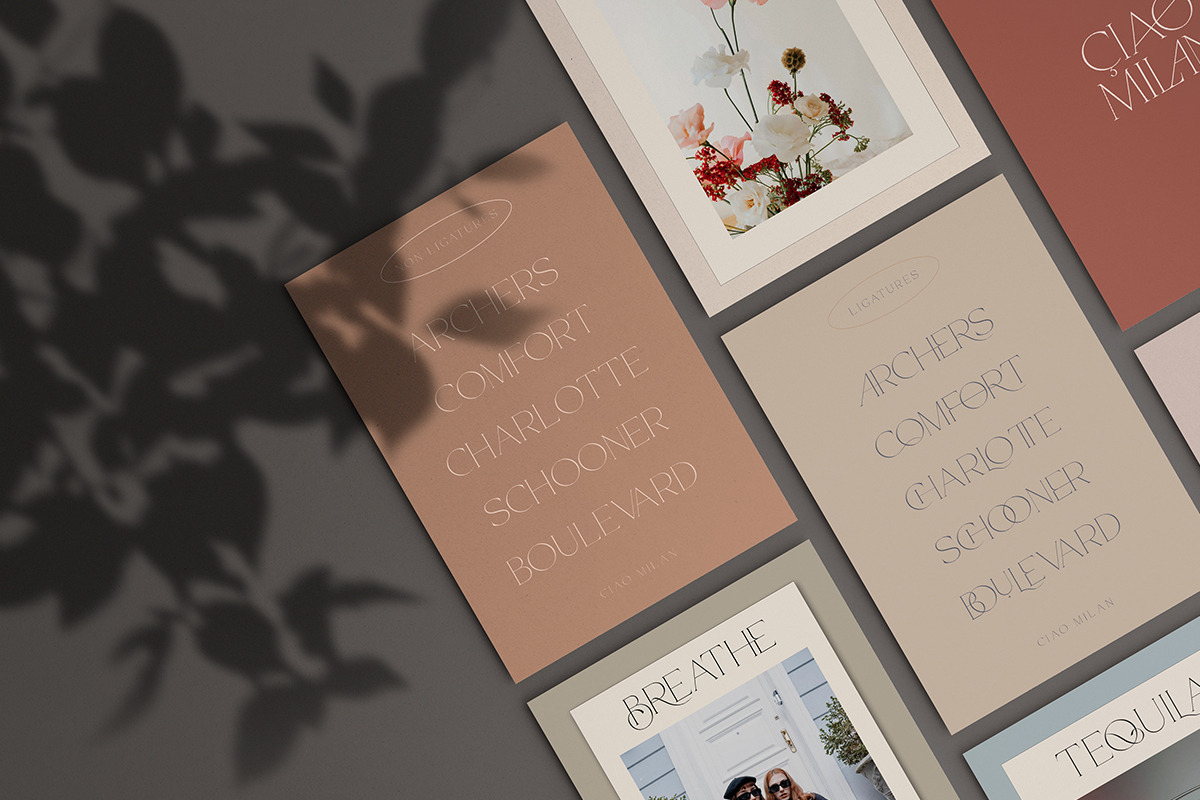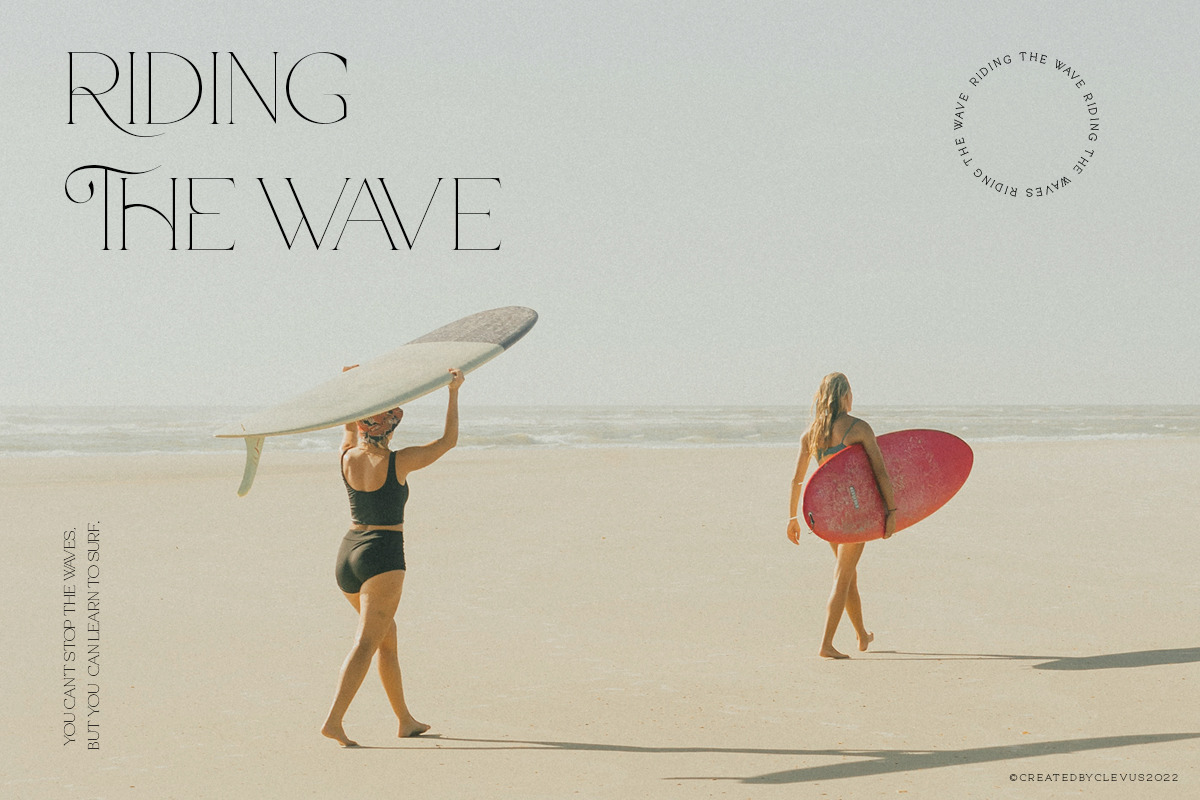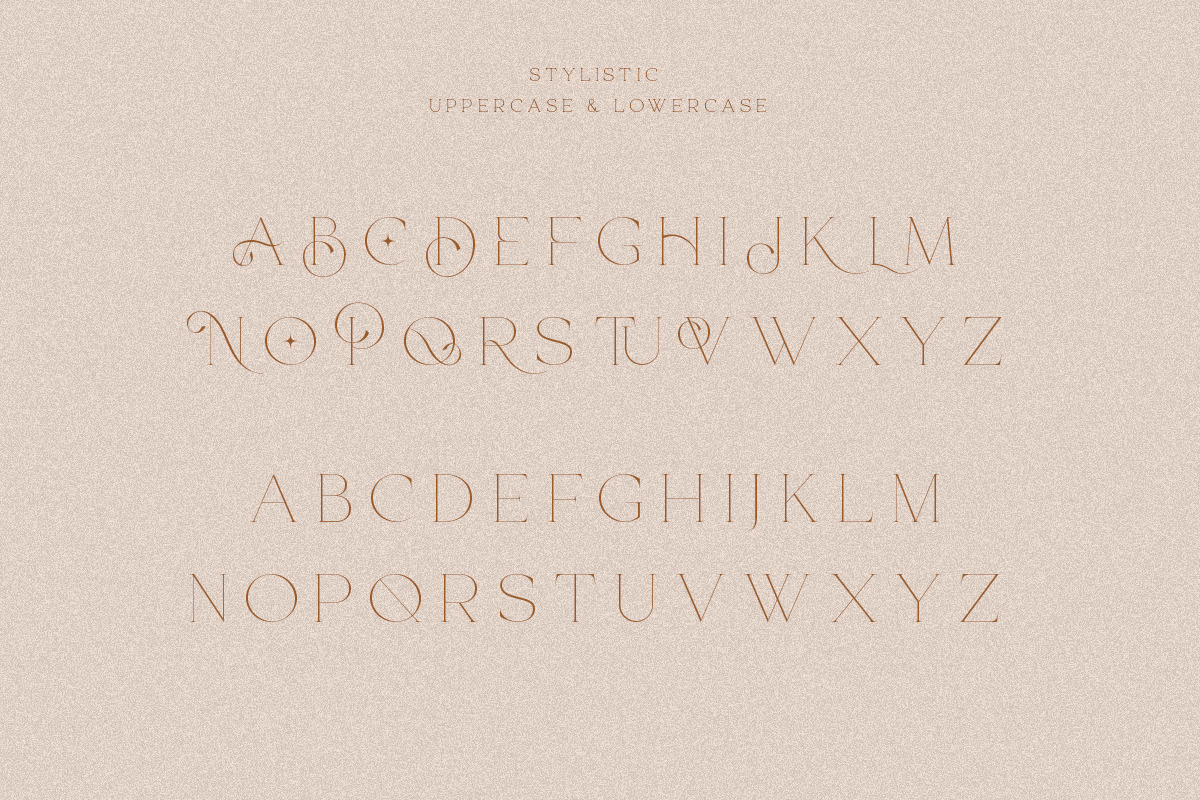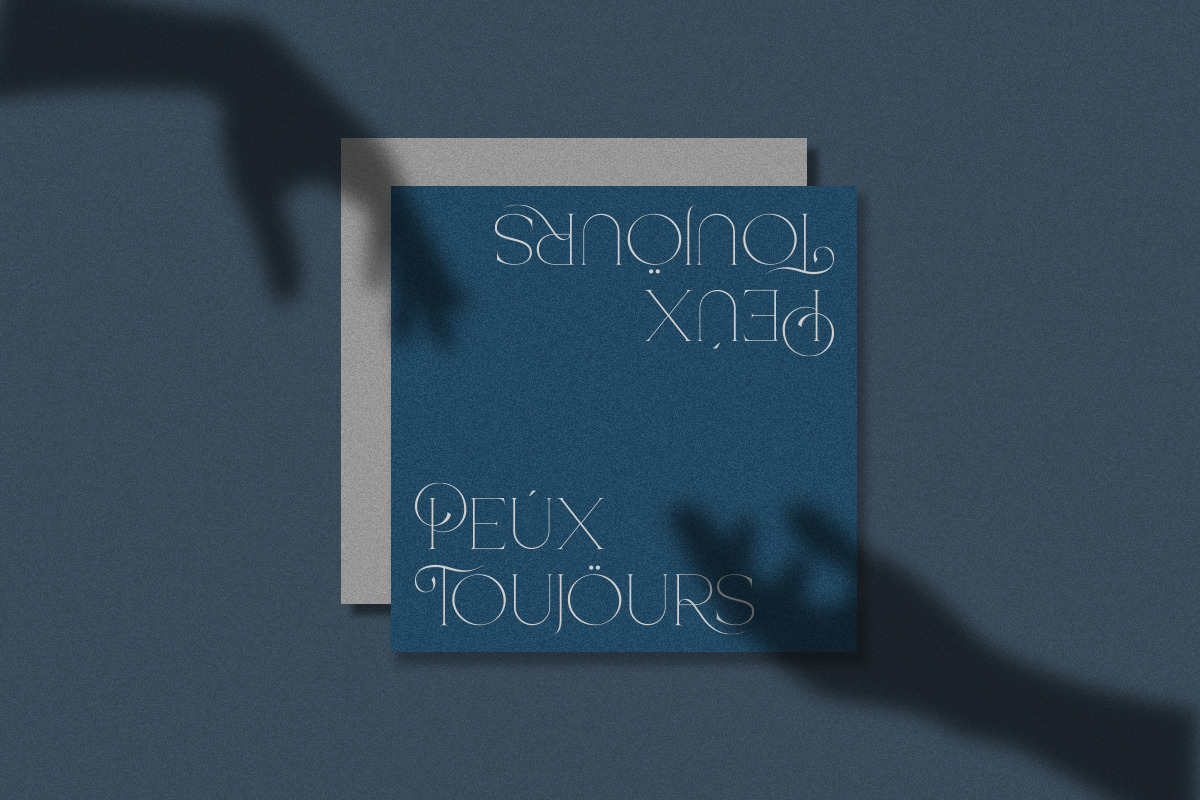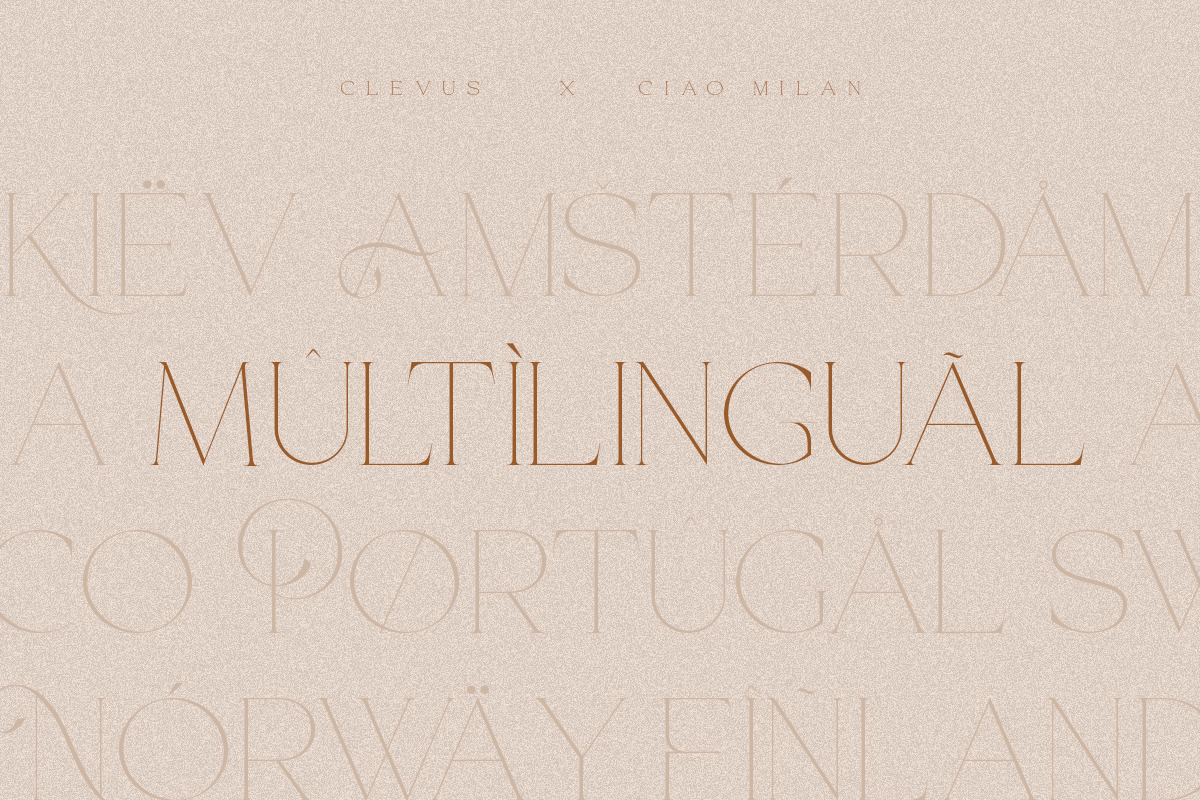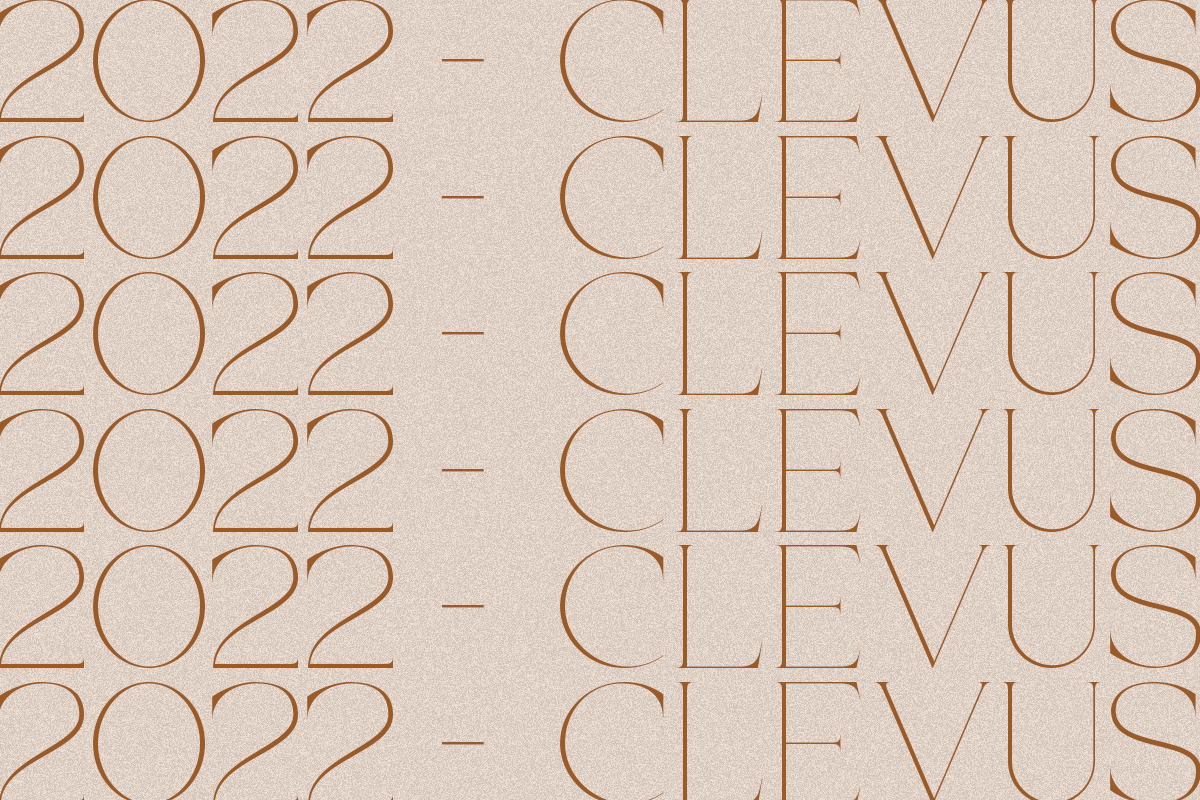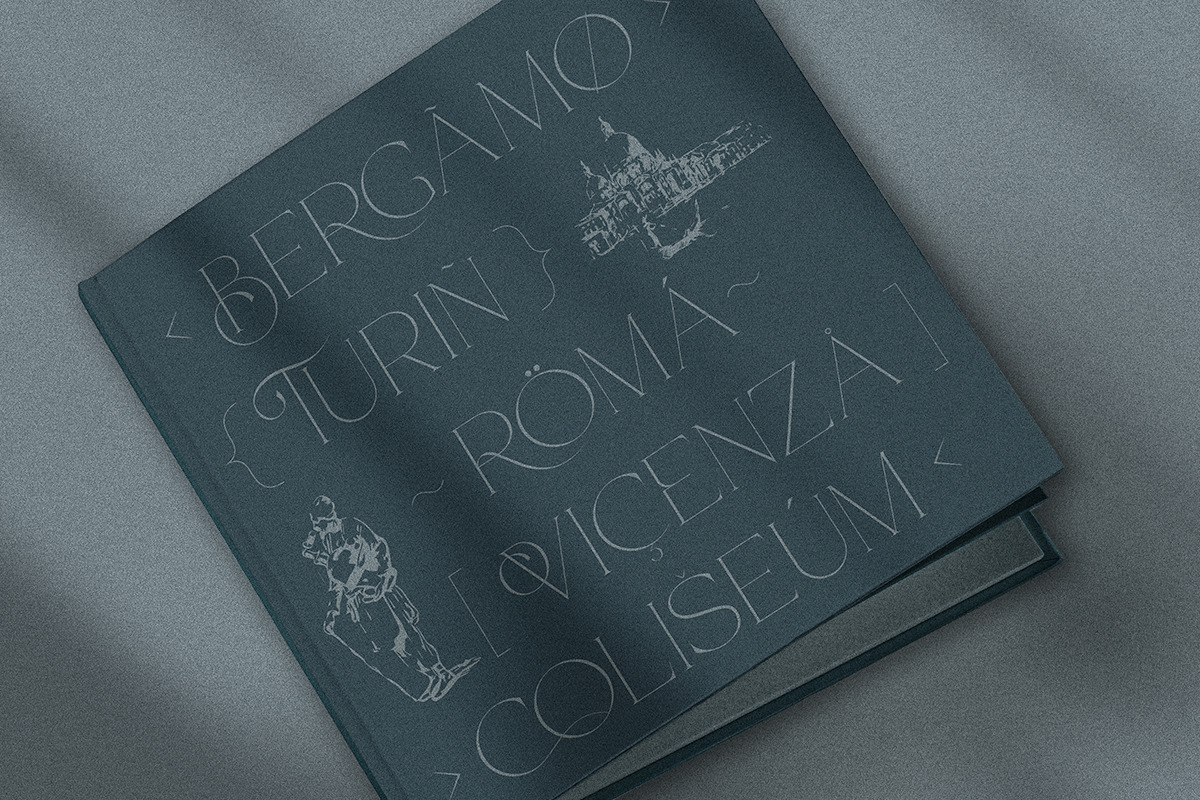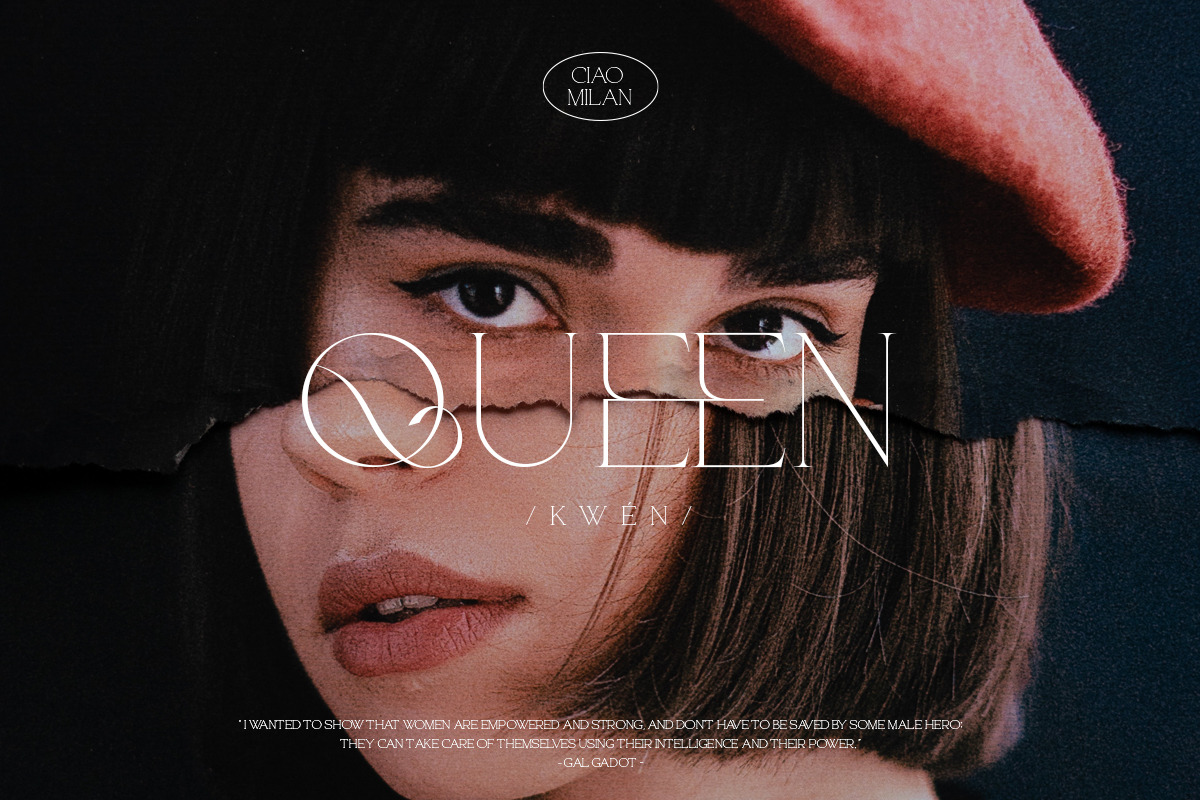
CiaoMilan - Modern Ligature Serif
Proudly present CiaoMilan Typeface, created by ClevUs, A serif modern ligature and alternate classic typeface that has own unique style & modern look. This typeface is perfect for an elegant & luxury logo, book or movie title design, fashion brand, magazine, clothes, lettering, quotes, and so much more.